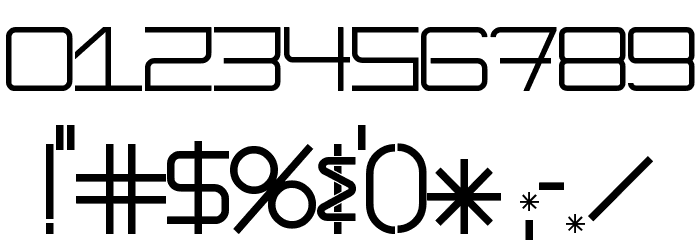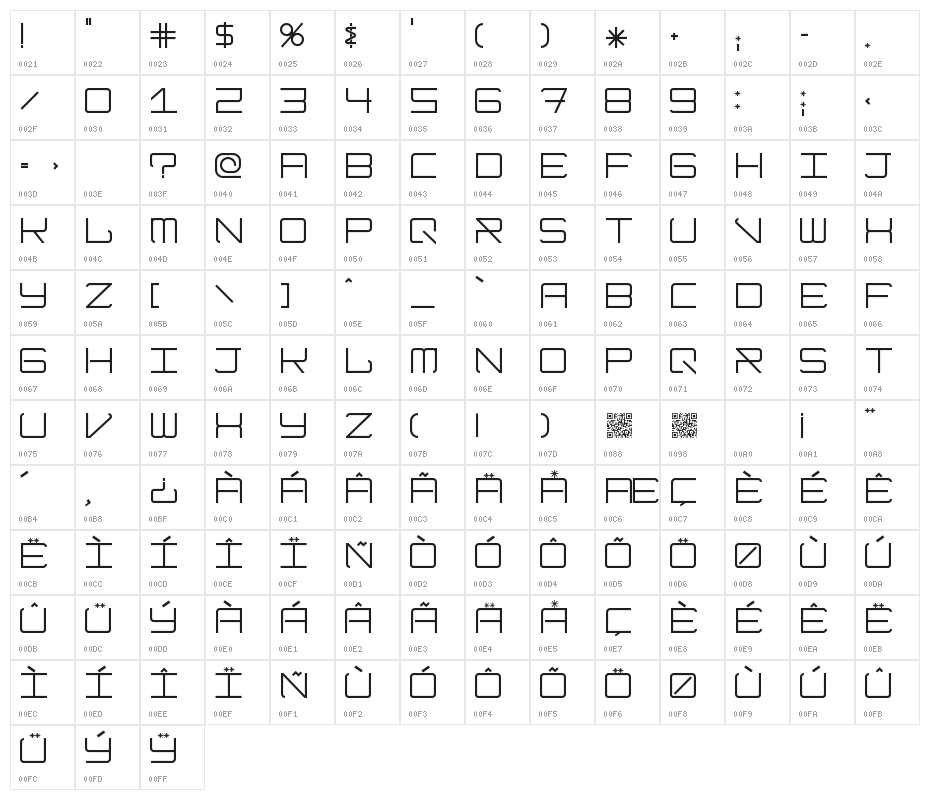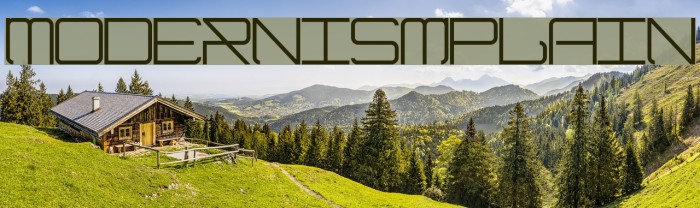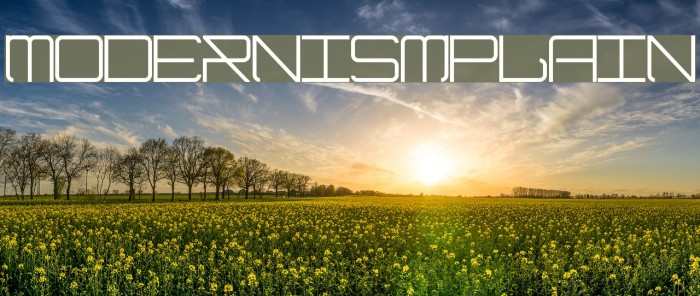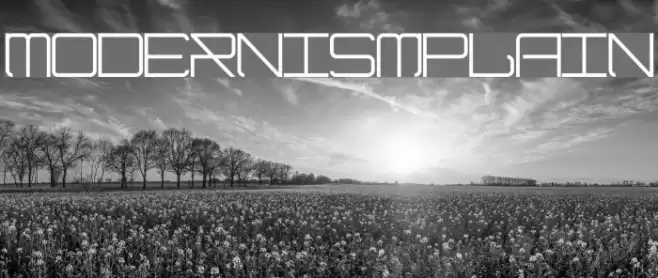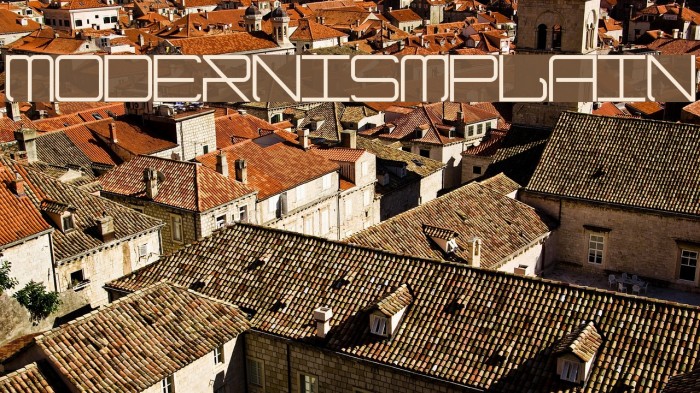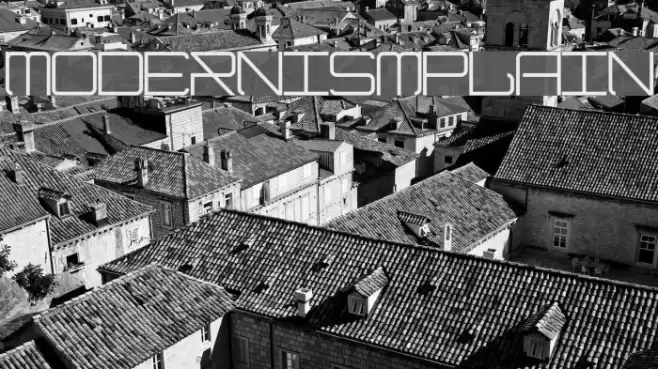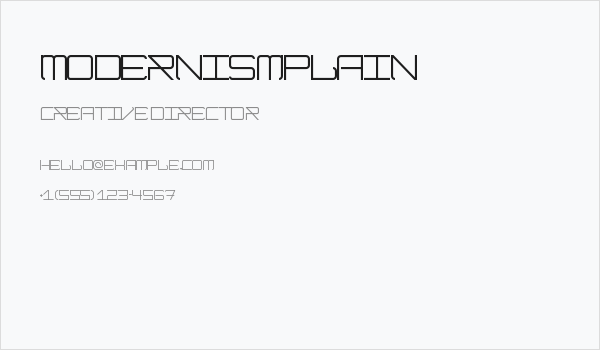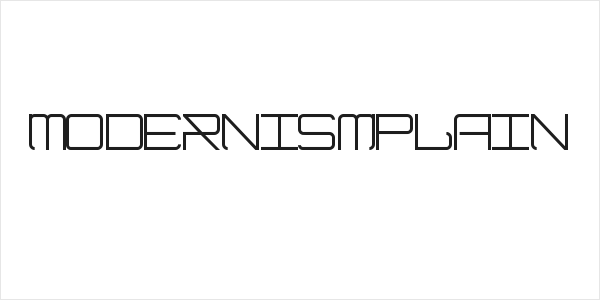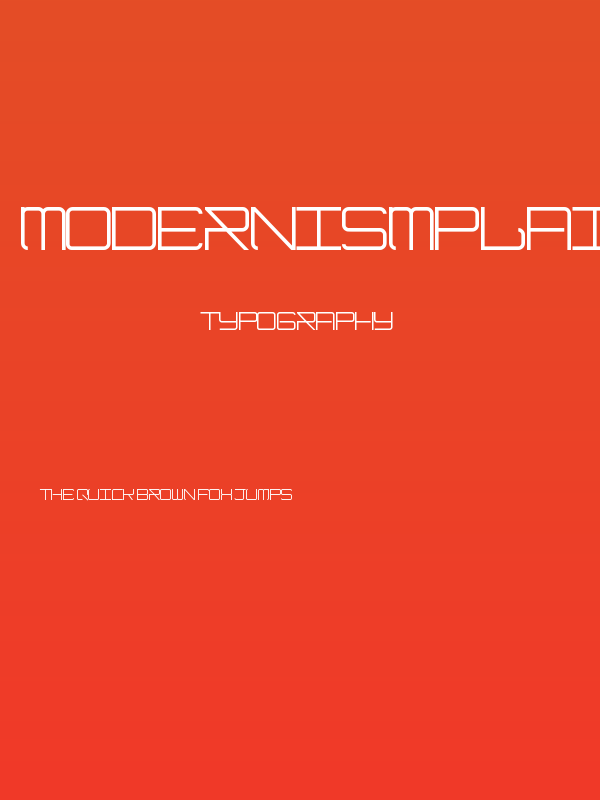
ModernismPlain Font
ModernismPlain Description
This font exhibits a modern and futuristic design with a geometric and angular structure. The characters are composed of straight lines and sharp angles, creating a sleek and technical appearance. The uppercase and lowercase letters maintain a consistent style, with a uniform stroke width that emphasizes clarity and precision. The numerals and special characters follow the same design principles, ensuring a cohesive look across all glyphs. This font is ideal for projects that require a contemporary and cutting-edge aesthetic, such as technology branding, digital interfaces, and modern advertising.
| Proposed Projects | Ideal for technology branding, digital interfaces, modern advertising, and futuristic designs. |